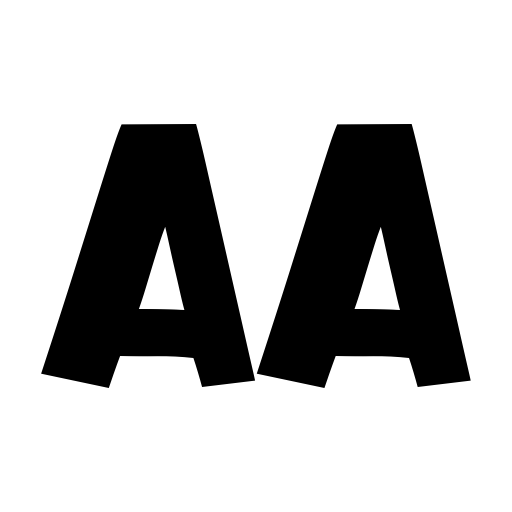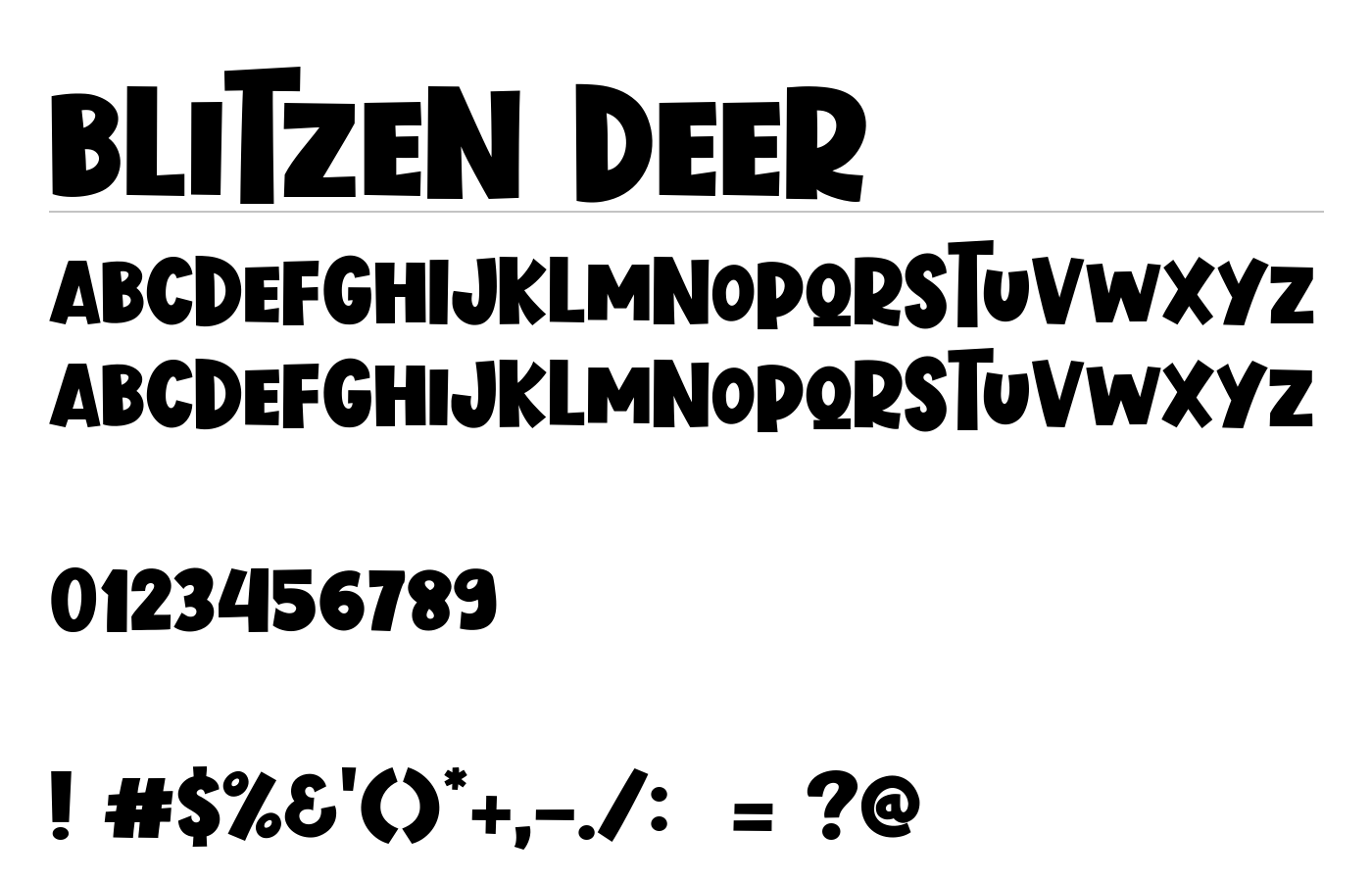
Blitzen Deer is a bold, playful sans serif font with a quirky, hand-drawn feel that makes it perfect for fun and informal designs. Its uneven, chunky letterforms create a lively and energetic vibe, ideal for kids’ books, posters, or branding that aims to be friendly and approachable. This font stands out best in headlines and display uses where personality and charm are key.
Blitzen Deer Font
About Blitzen Deer Font
| Font family | Blitzen Deer Font |